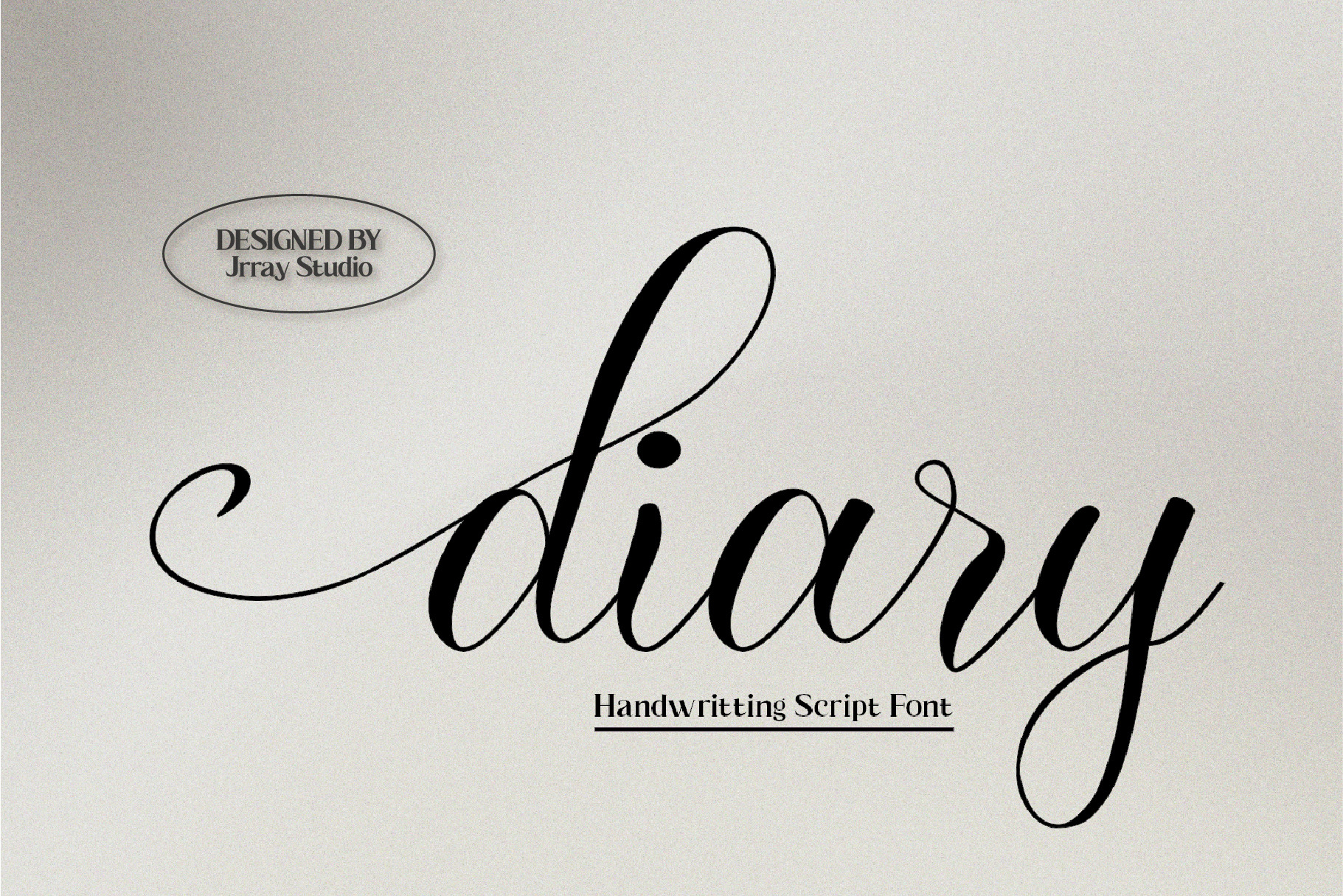
Diary Handwritten Script Font
Let's introducing to diary handwritting script font a casual handwritten script with unique curves and an features font.
- Regular diary Font (uppercase & lowecase)
- Upper & lowercase Backswash, lowercase swash